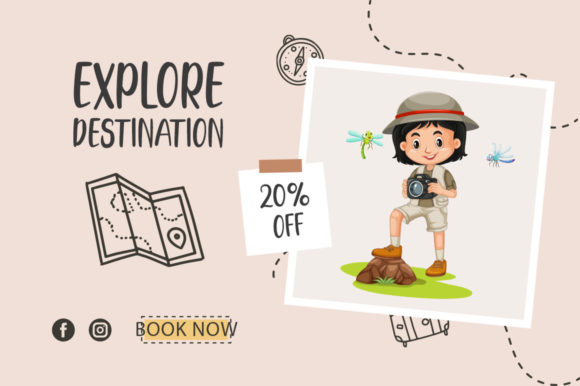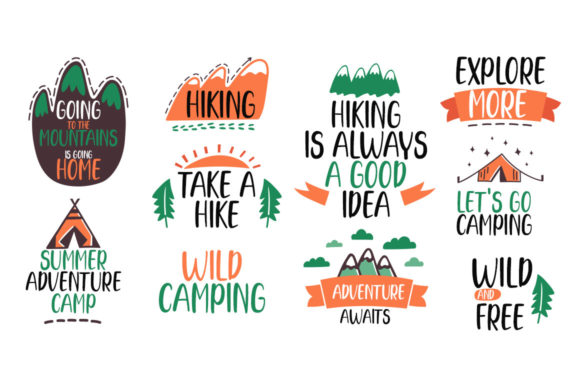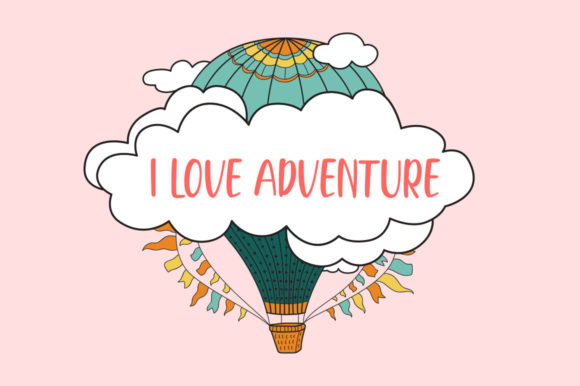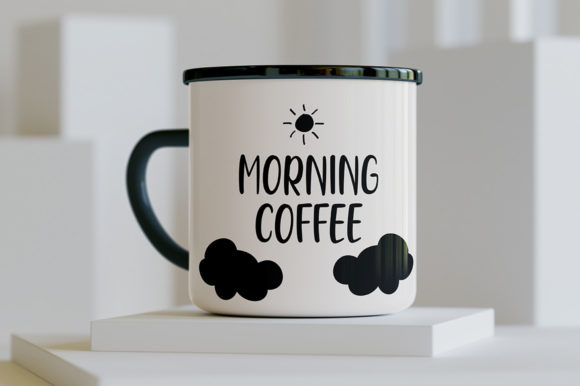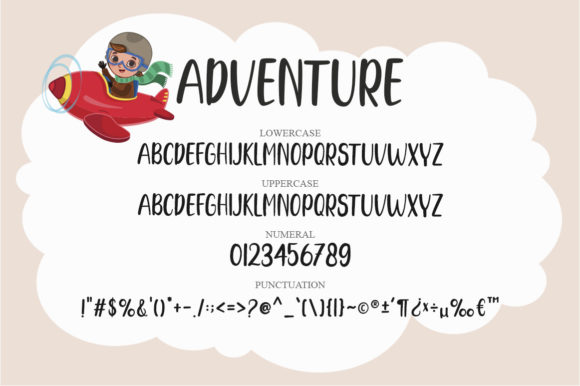
Unleash Your Creativity with Adventure Font: The Ultimate Display Font for Designers and Crafters
Are you a designer or crafter looking for a font that can add a touch of playfulness and excitement to your projects? Look no further than Adventure Font! This simple yet bold display font is perfect for a wide range of applications, from logos and headings to t-shirts, letterhead, signage, labels, news, posters, badges, and so much more.
What is Adventure Font?
Adventure Font is a carefully crafted display font that exudes a sense of fun and adventure. Its clean and simple design makes it highly versatile, allowing it to be used in various contexts and applications. Whether you’re looking to create a bold logo, a eye-catching poster, or a stylish t-shirt design, Adventure Font is the perfect choice.
Key Features of Adventure Font
• Simple and Playful Design: Adventure Font features a simple yet playful design that is sure to capture the attention of your audience.
• Highly Versatile: This font can be used for a wide range of applications, from logos and headings to t-shirts, letterhead, signage, labels, news, posters, badges, and more.
• Easy to Read: Despite its bold and playful design, Adventure Font is easy to read, making it perfect for use in various contexts.
• Scalable: This font is highly scalable, ensuring that it looks great in any size or resolution.
Use Cases for Adventure Font
Adventure Font is perfect for a wide range of applications, including:
• Logo Design: Create a bold and eye-catching logo for your business or brand with Adventure Font.
• Poster Design: Use Adventure Font to create stunning posters for events, promotions, or announcements.
• T-Shirt Design: Add a touch of playfulness to your t-shirt designs with Adventure Font.
• Signage: Use Adventure Font to create eye-catching signage for your business or event.
• Labels and Packaging: Add a personal touch to your labels and packaging with Adventure Font.
• News and Media: Use Adventure Font to create engaging headlines and titles for your news articles or media publications.
• Badges and Stickers: Create fun and playful badges and stickers with Adventure Font.
Why Choose Adventure Font?
So why choose Adventure Font over other display fonts? Here are just a few reasons:
• Unique and Playful Design: Adventure Font features a unique and playful design that is sure to stand out from the crowd.
• Highly Versatile: This font can be used in a wide range of applications, making it a great value for designers and crafters.
Font Name Adventure Font
Author Nirmala Creative
In conclusion, Adventure Font is the perfect display font for designers and crafters looking to add a touch of playfulness and excitement to their projects. With its simple yet bold design, high versatility, and ease of use, Adventure Font is sure to become a go-to font in your design arsenal. So why wait? Download Adventure Font today and start unleashing your creativity!